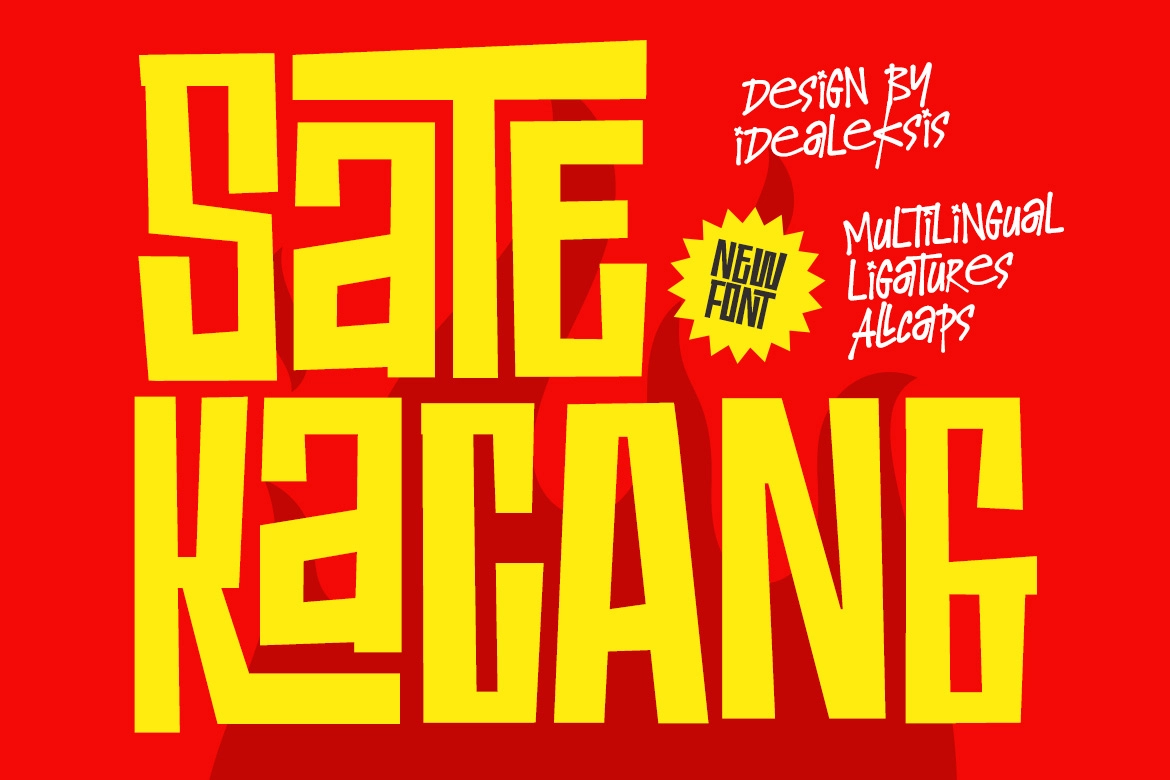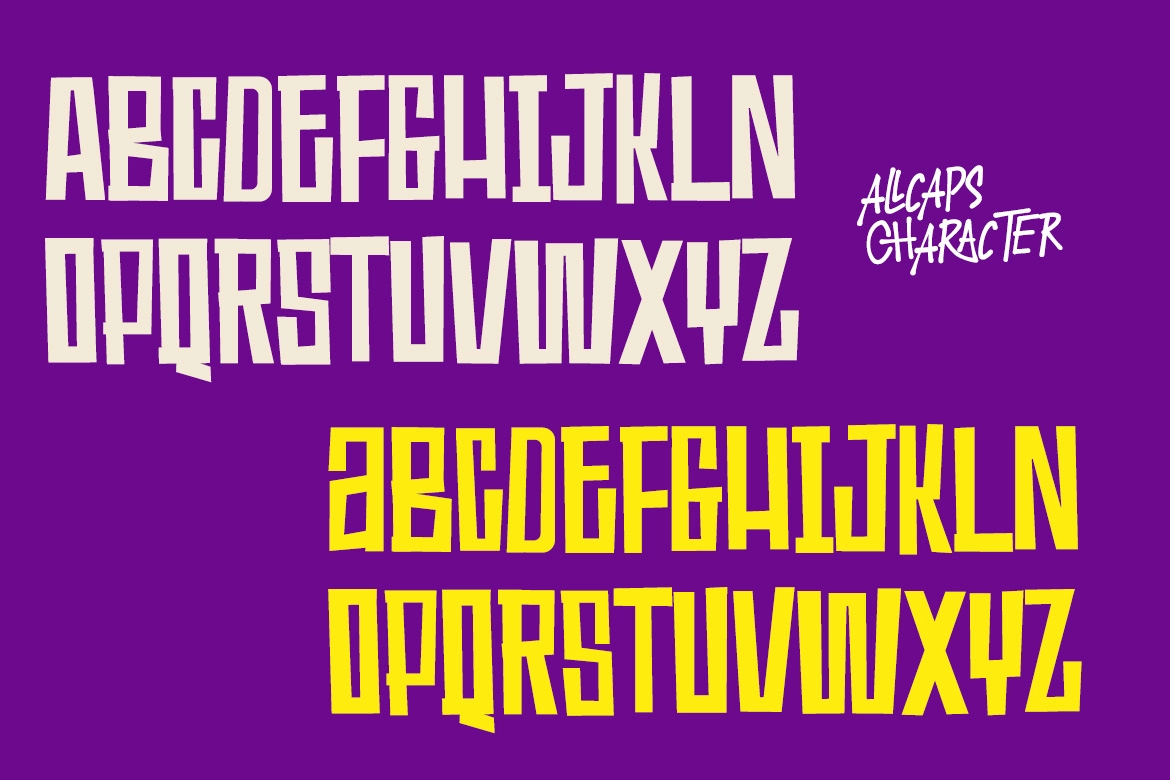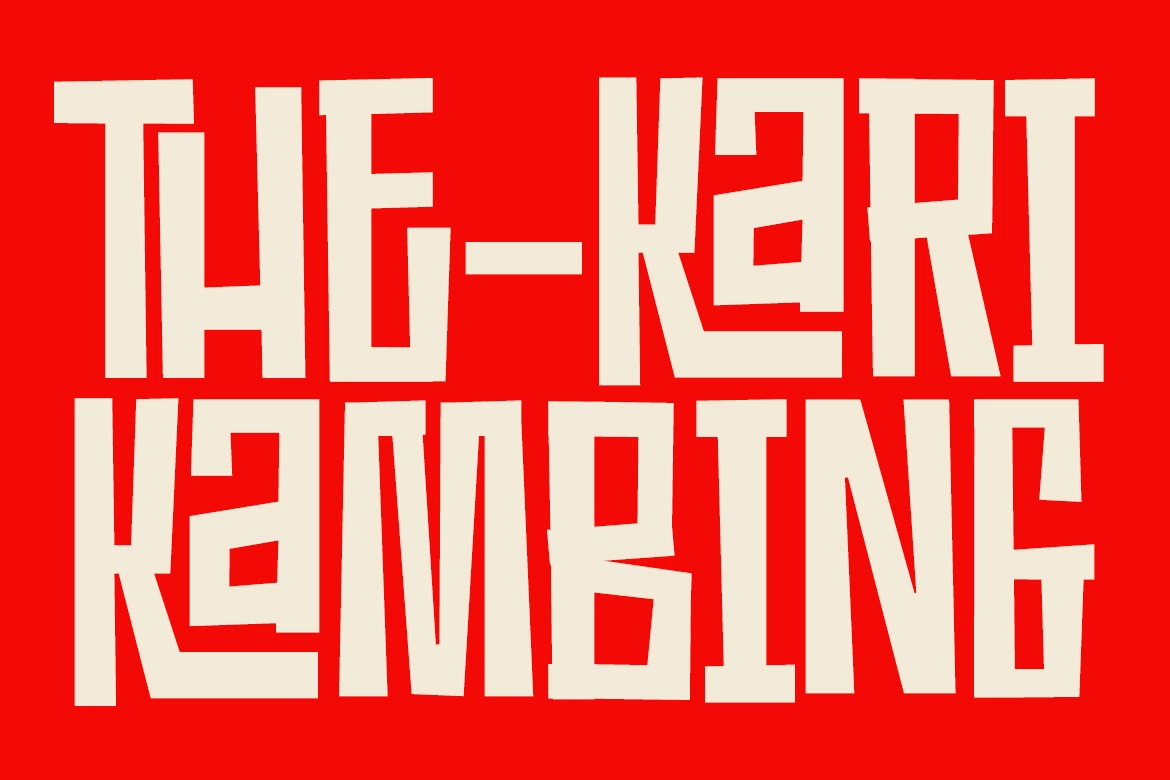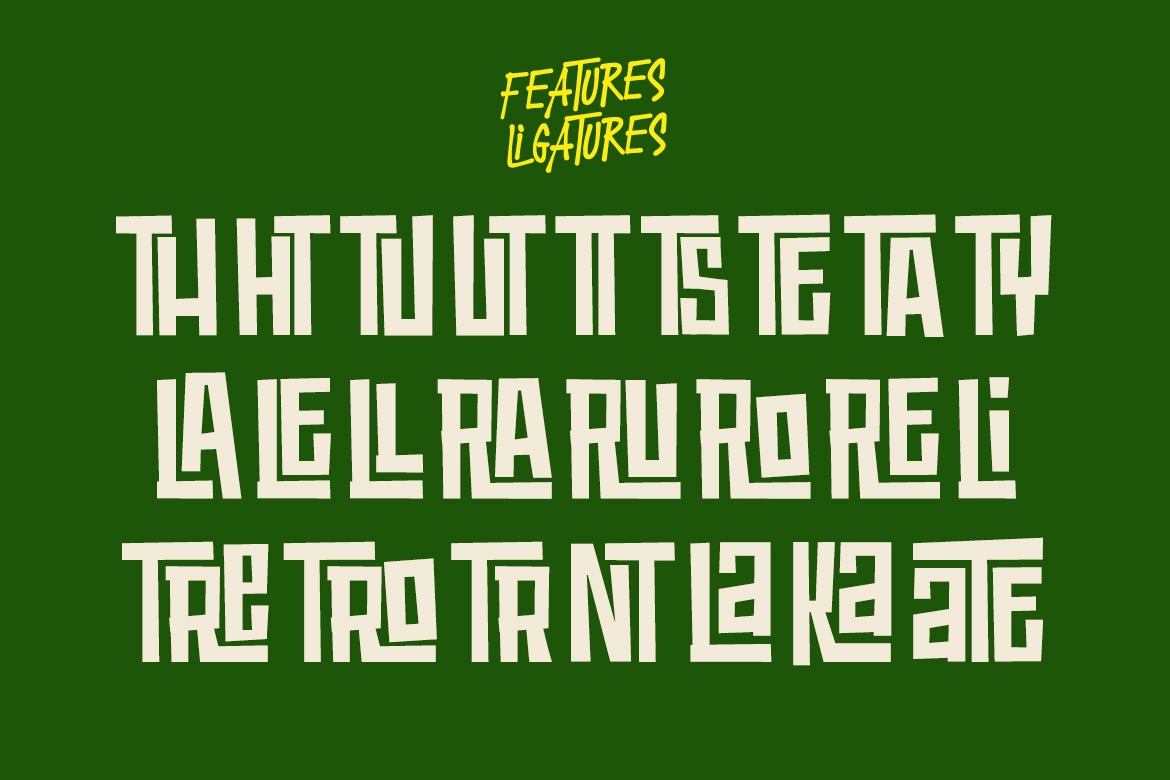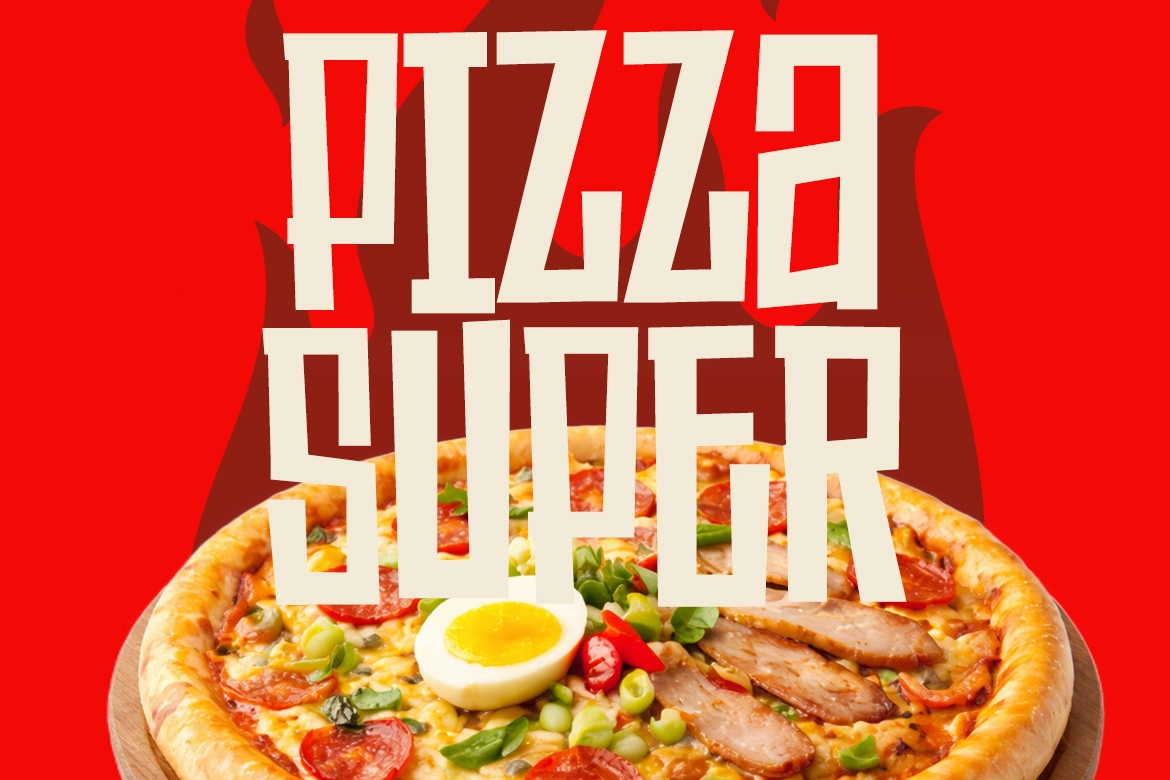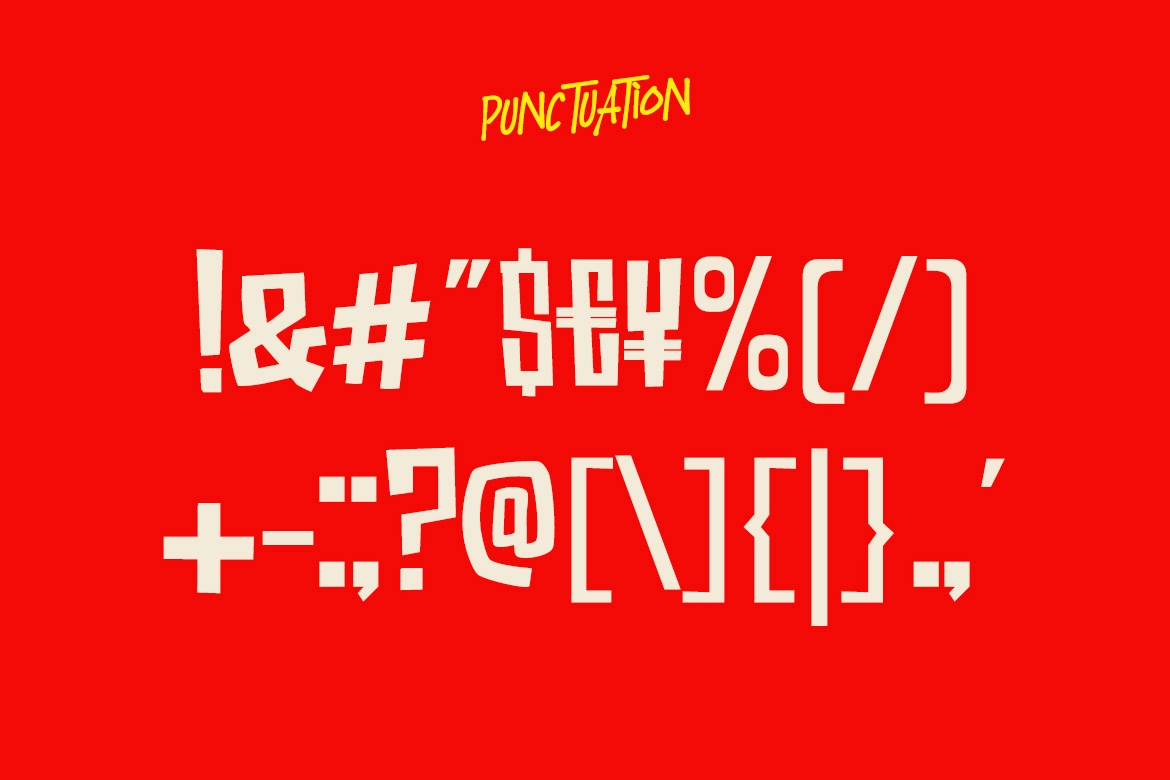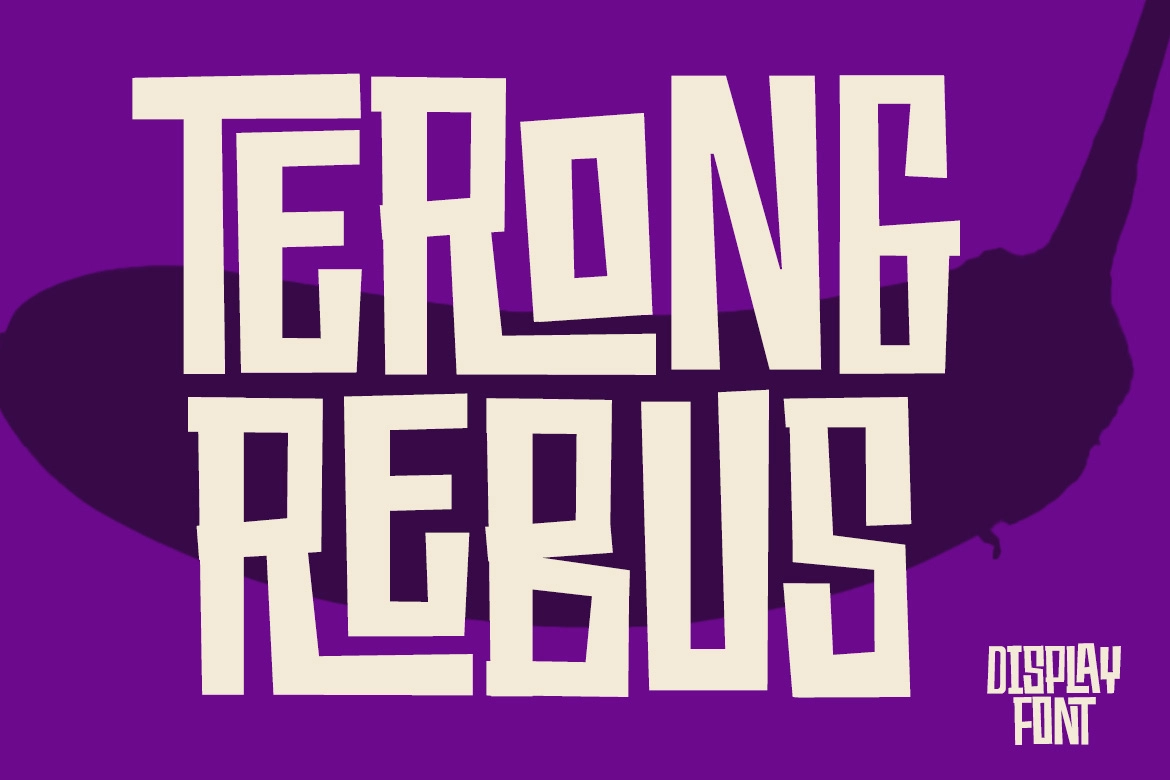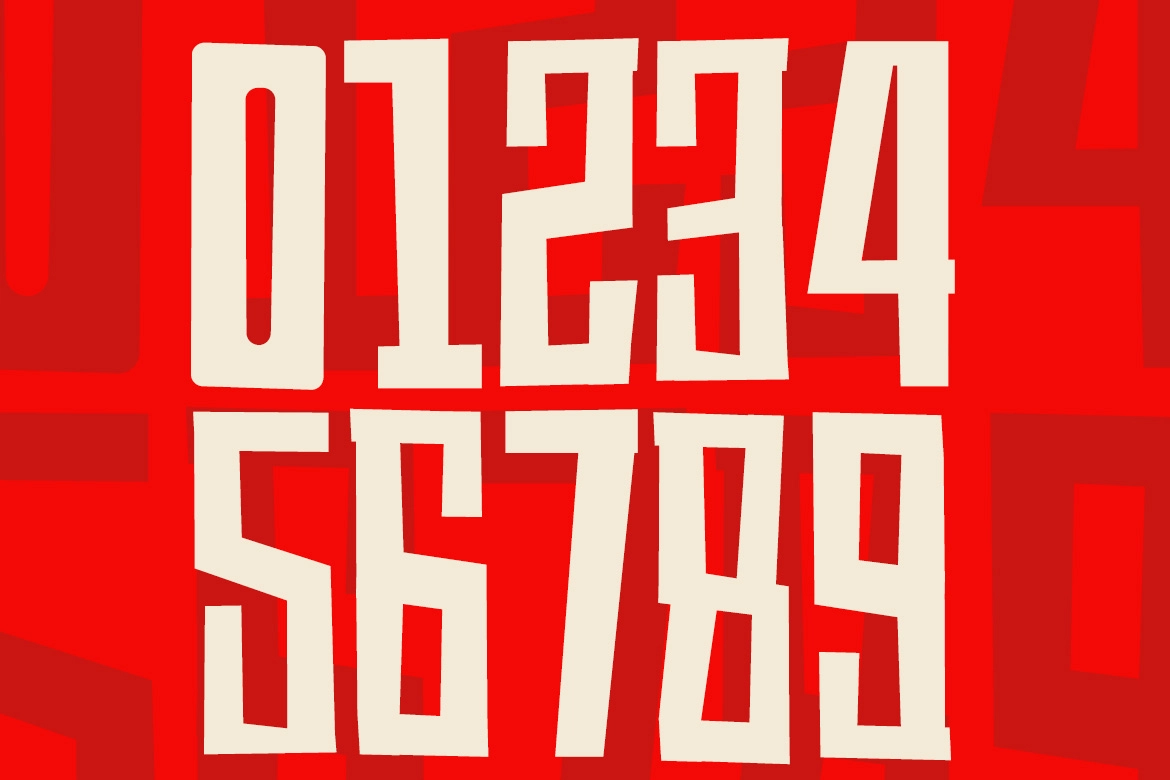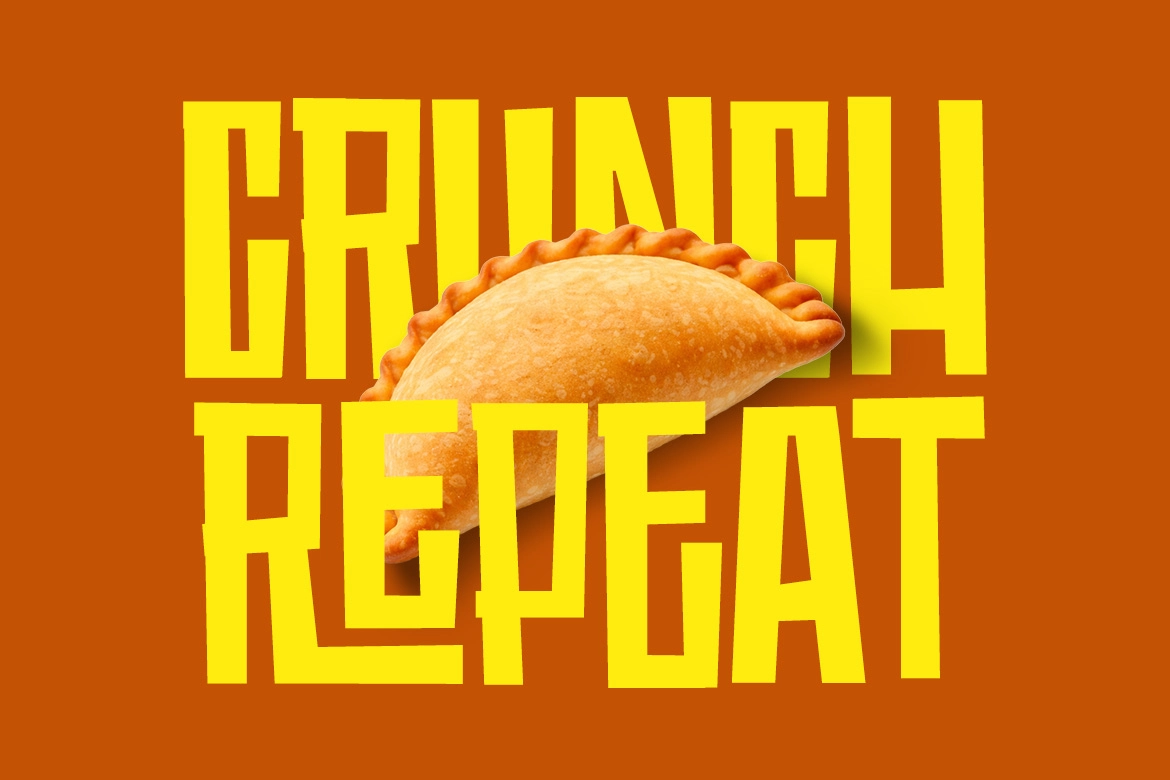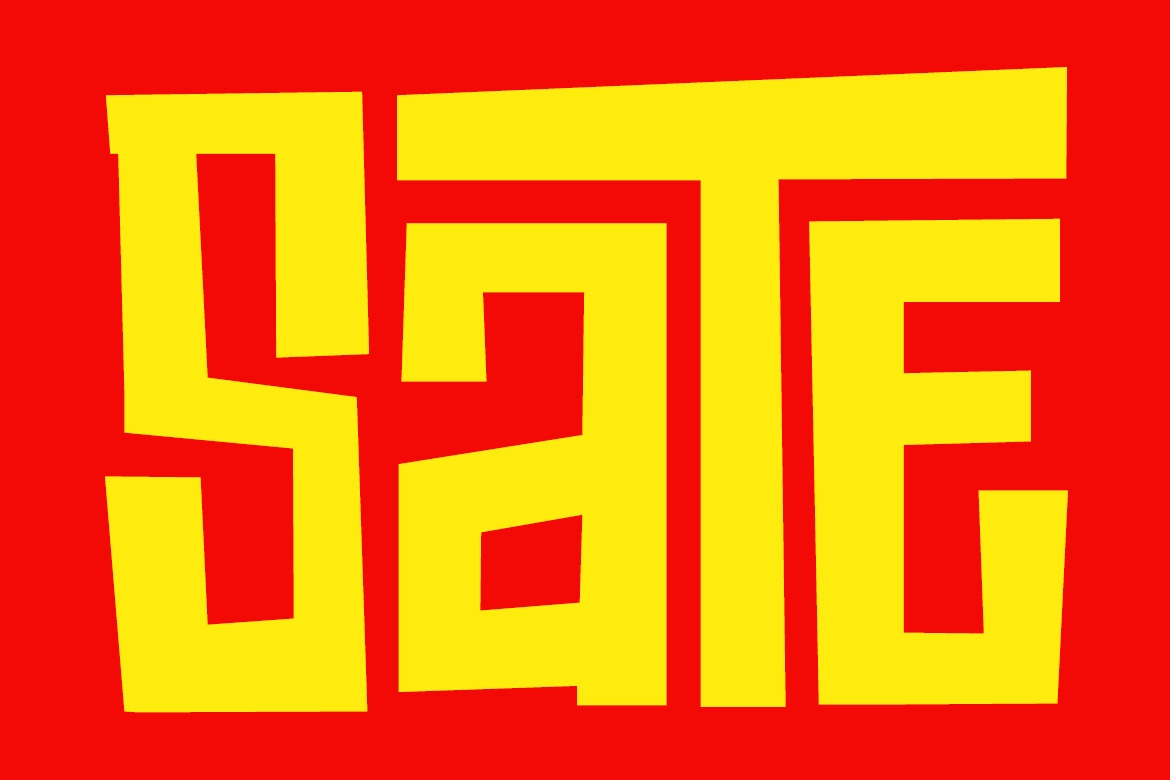
Sate Kacang – Bold Playful Display Font
Sate Kacang
Sate Kacang – Bold Playful Display Font is a bold and expressive display typeface inspired by a handcrafted paper-cut aesthetic. Its chunky, angular letterforms and uneven edges create a raw, energetic look that feels both playful and powerful. The creative use of negative space adds rhythm and movement, making every word visually engaging.
Designed to stand out, Sate Kacang is perfect for projects that need strong personality and impact. Whether used for food branding, posters, packaging, or social media, it delivers a vibrant and informal tone that instantly grabs attention while maintaining a handcrafted charm.
- Uppercase (All Caps)
- Alternates
- Punctuation